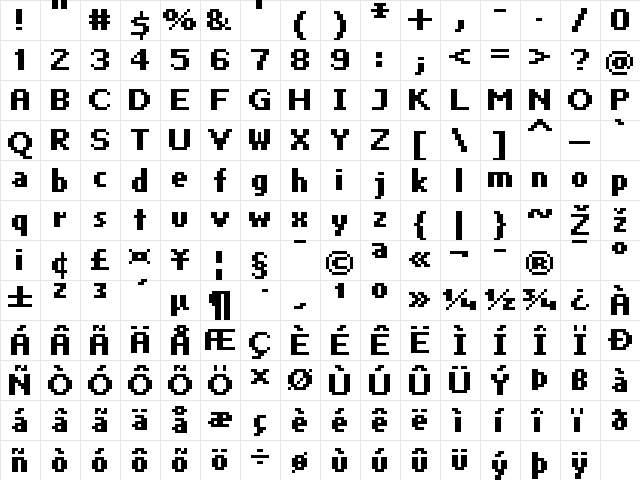
FFF Neostandard Bold Extended Regular
| Foundry | Fonts For Flash |
| Designer | Fonts For Flash |
Design Context for FFF Neostandard Bold Extended Typeface
FFF Neostandard Bold Extended takes a measured approach to typography — its balanced proportions and neutral character make it a reliable workhorse for both digital and print work. Its bold stroke weight gives it real presence on the page.